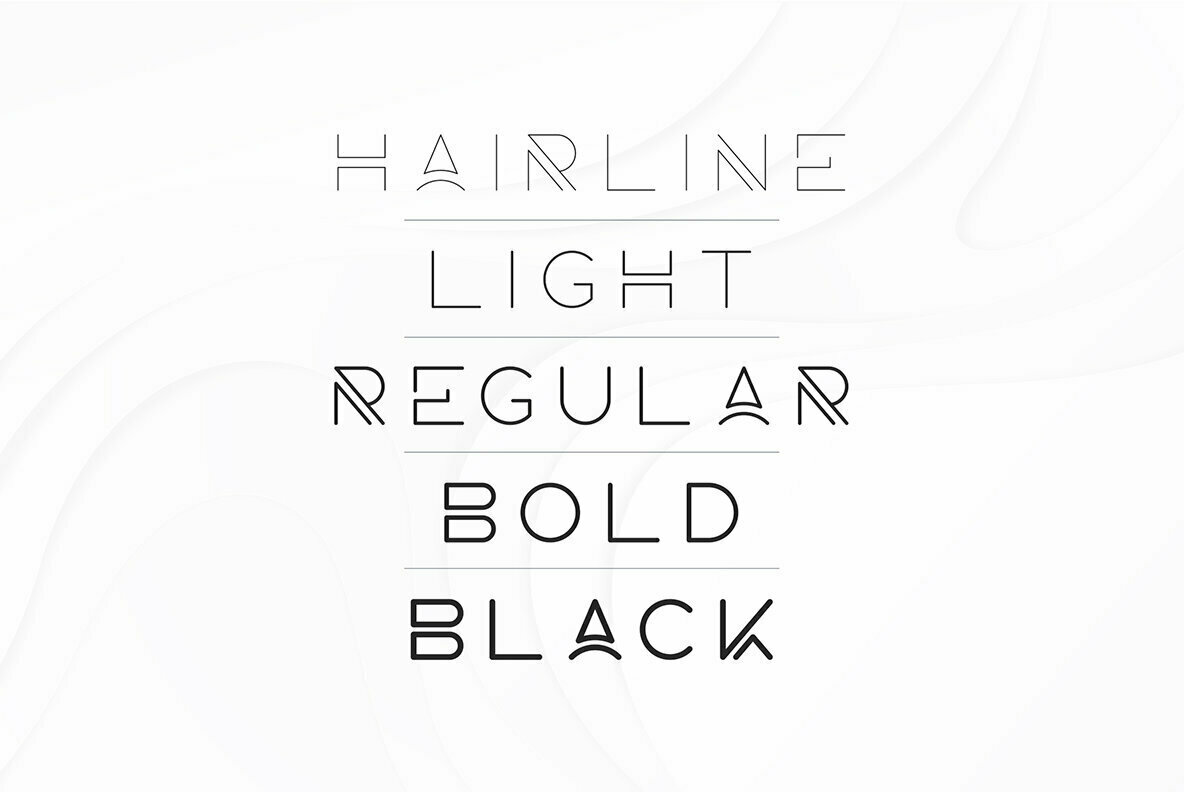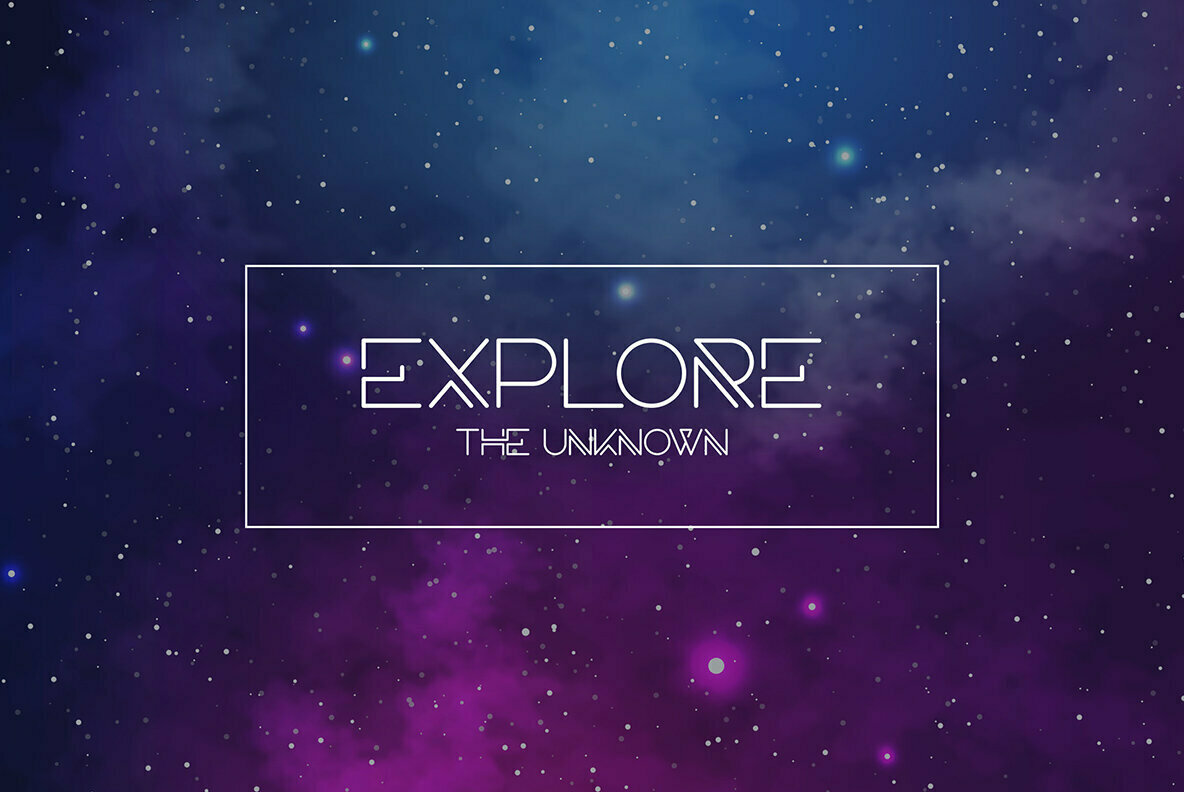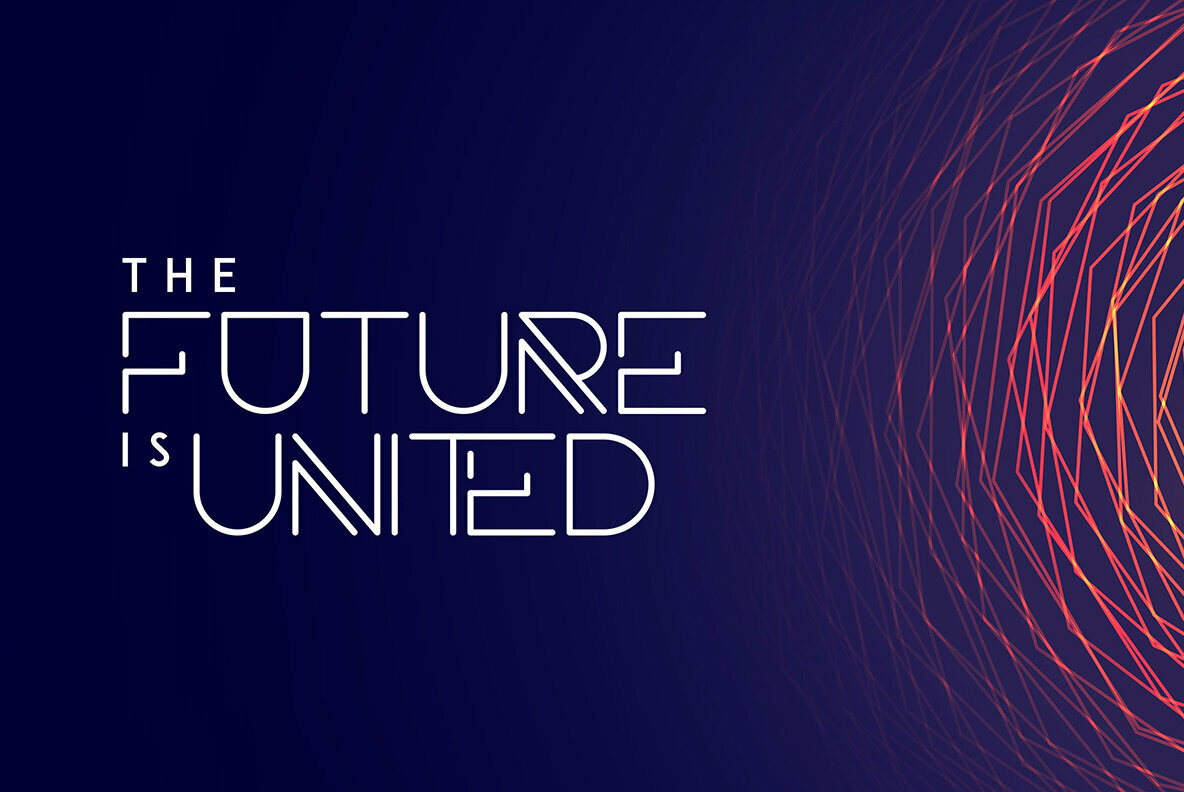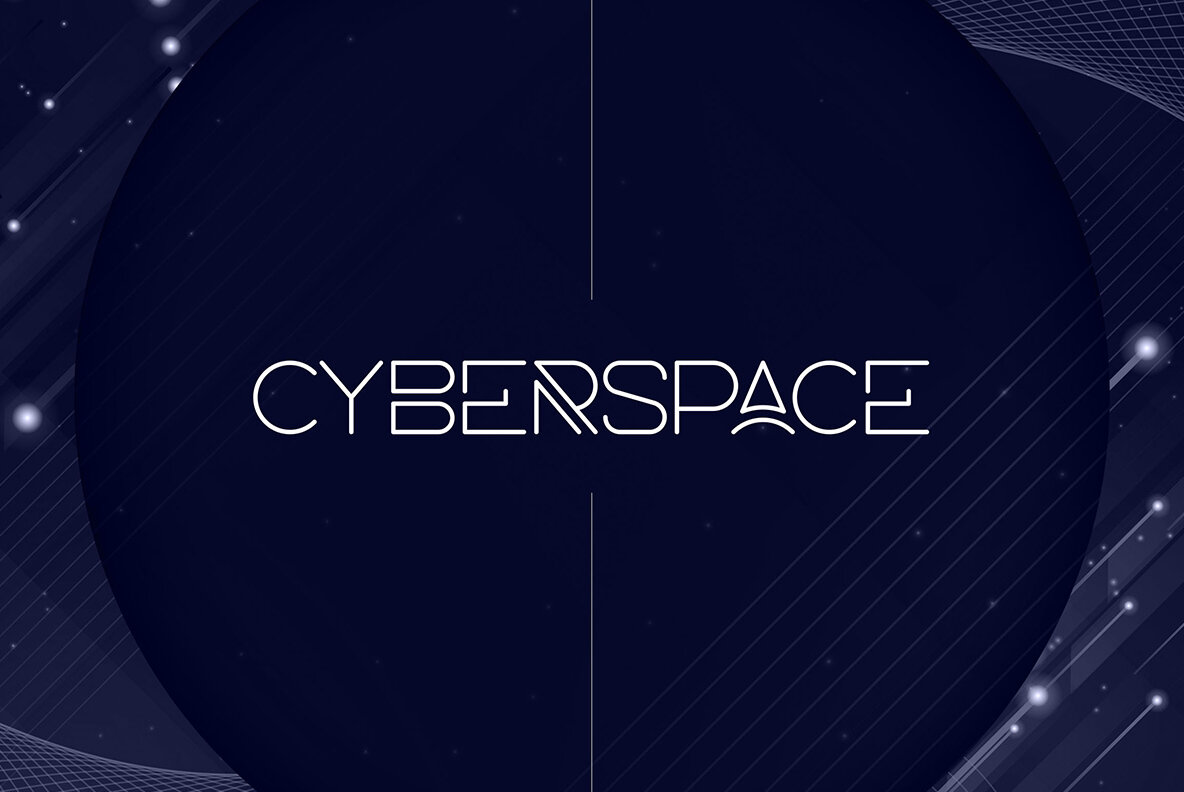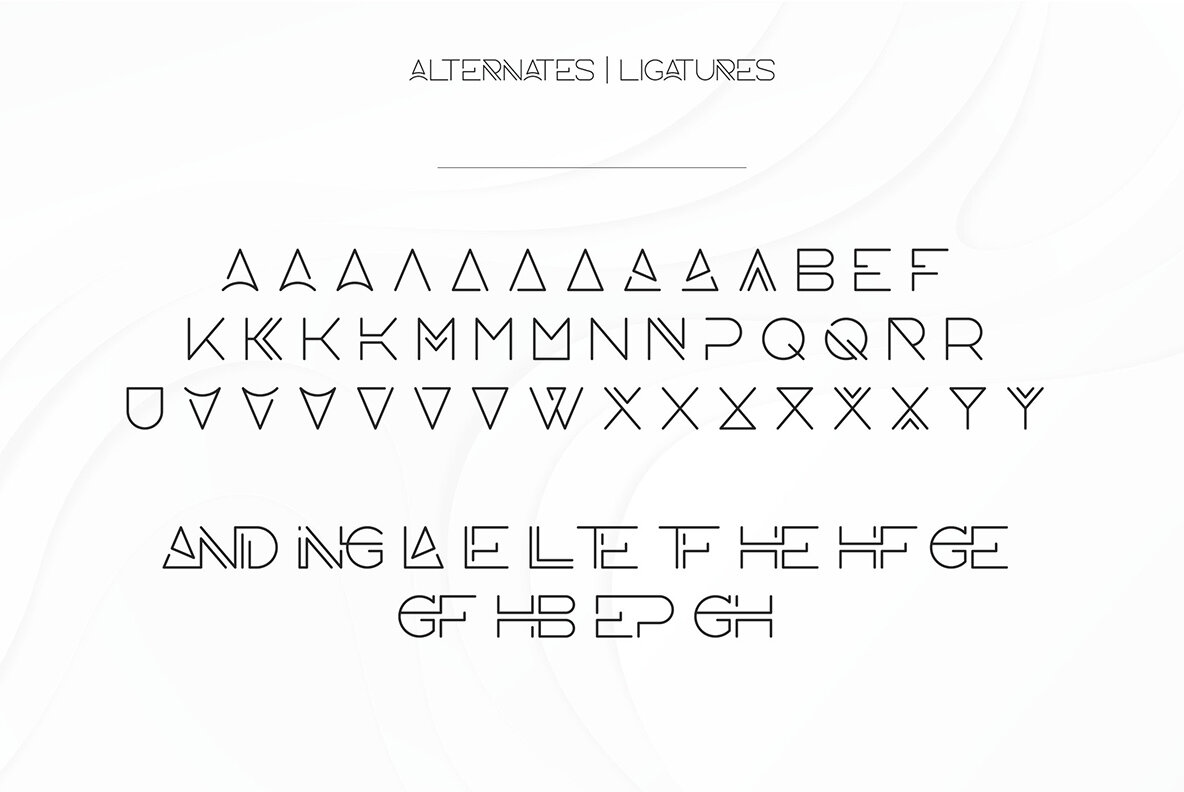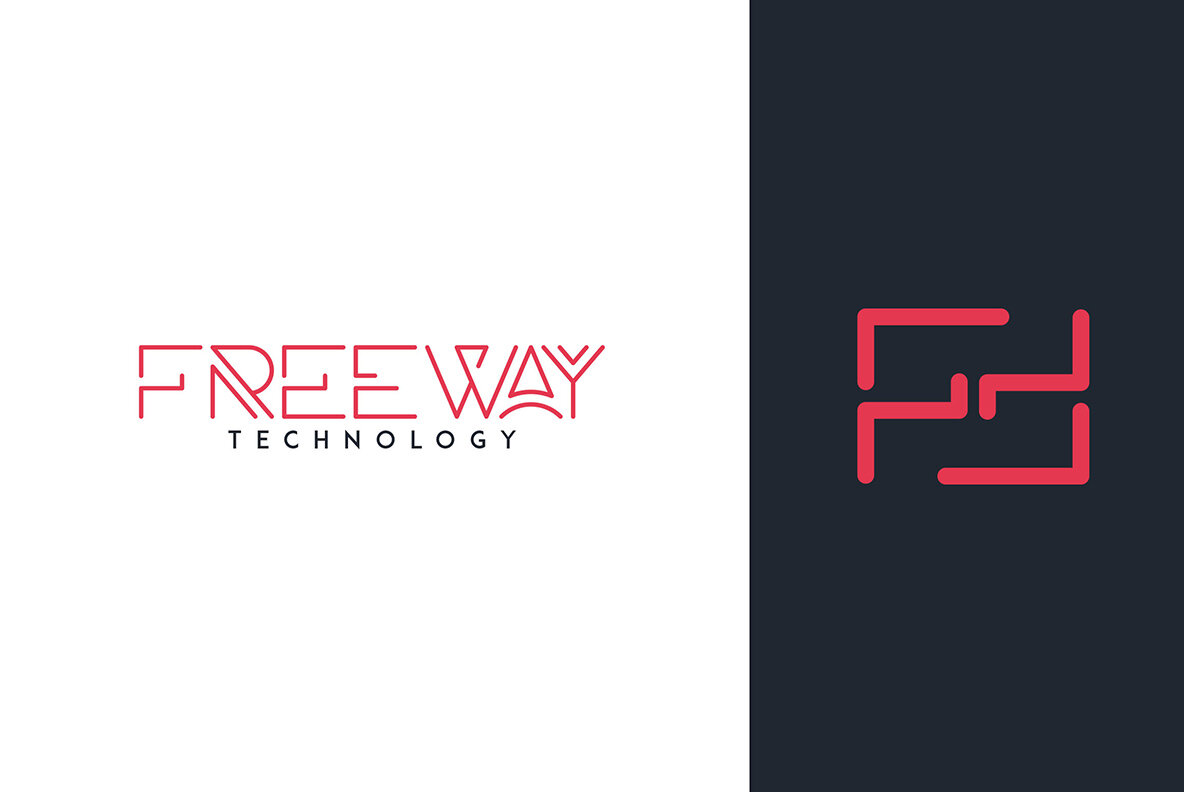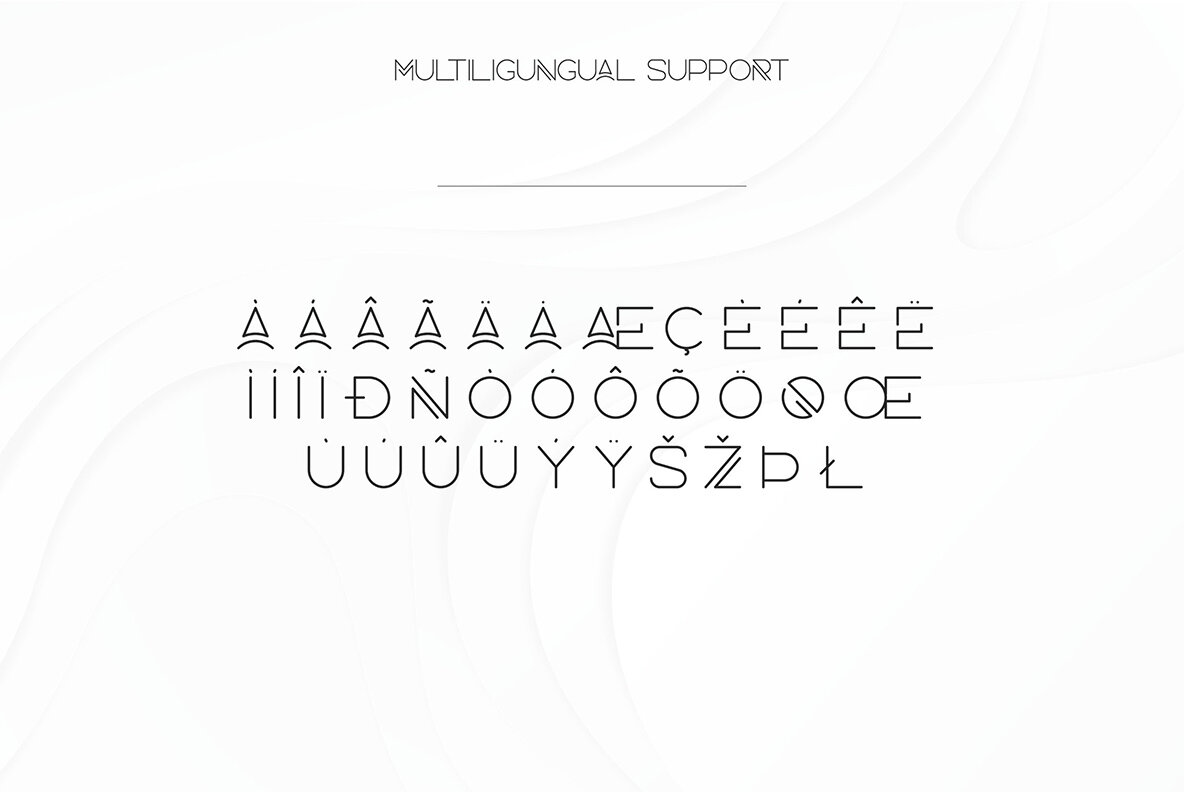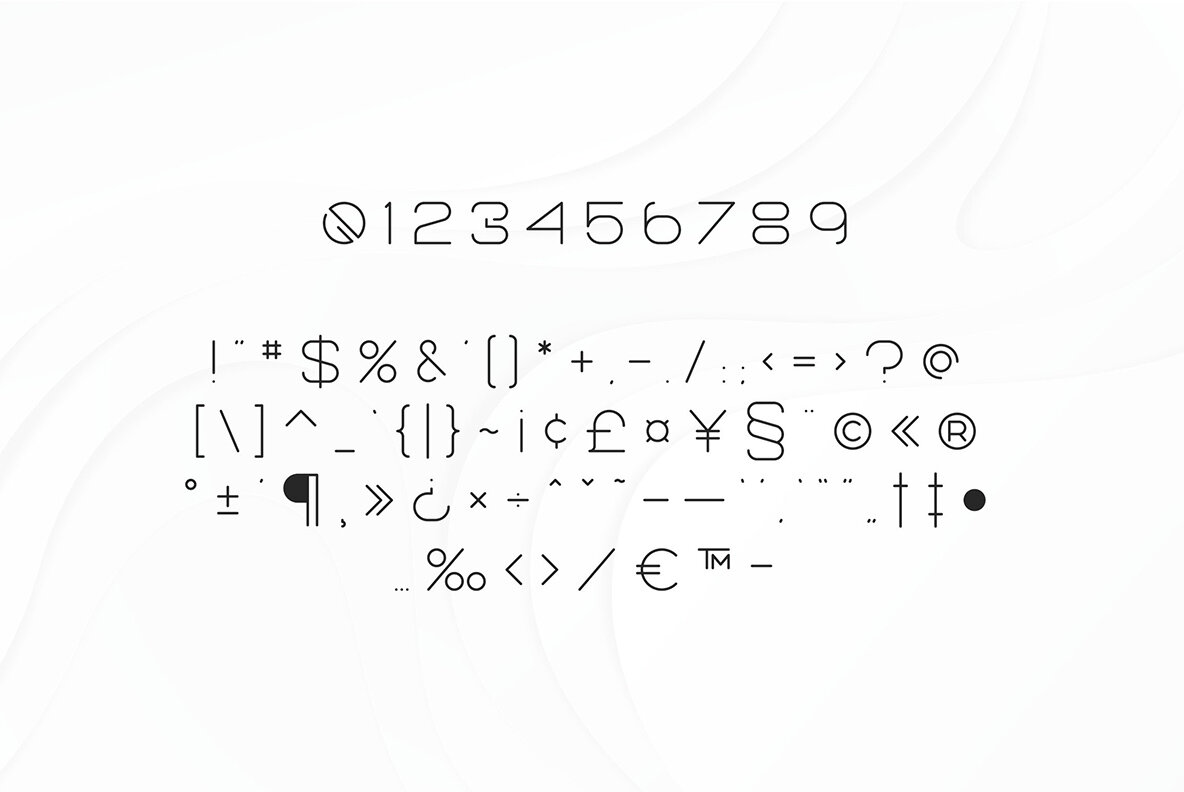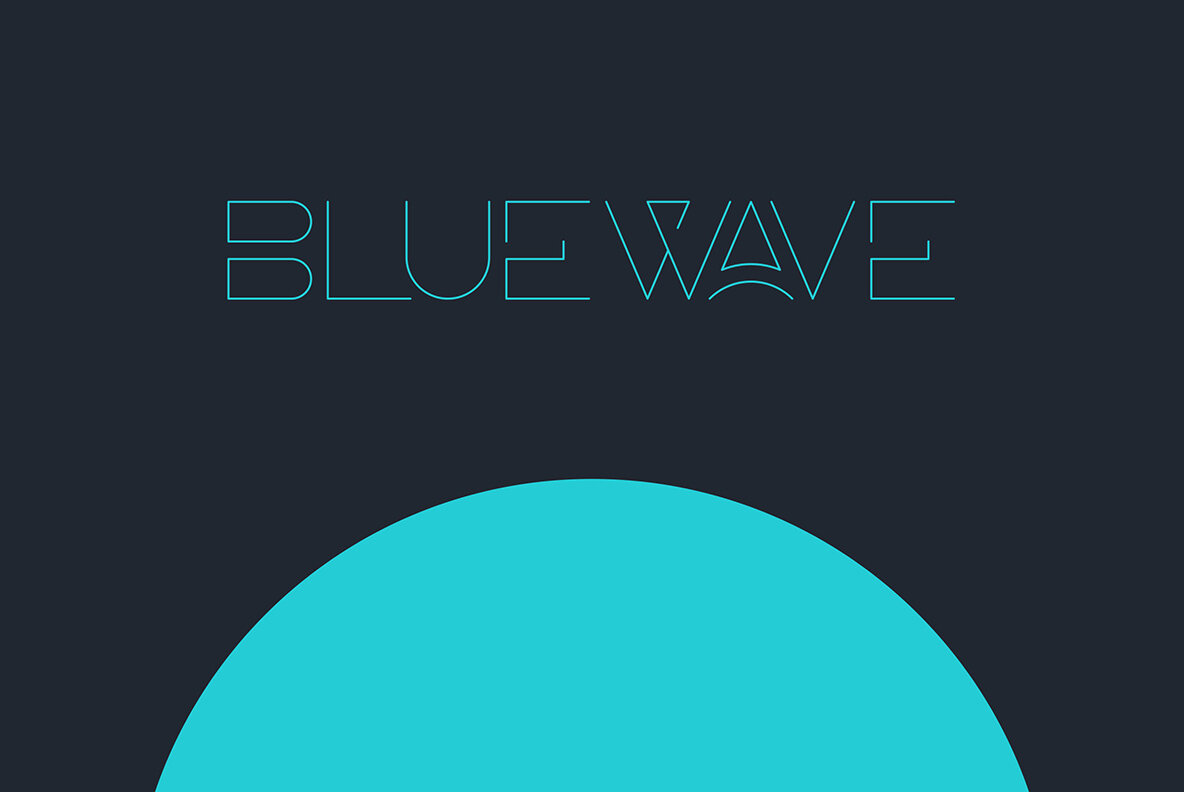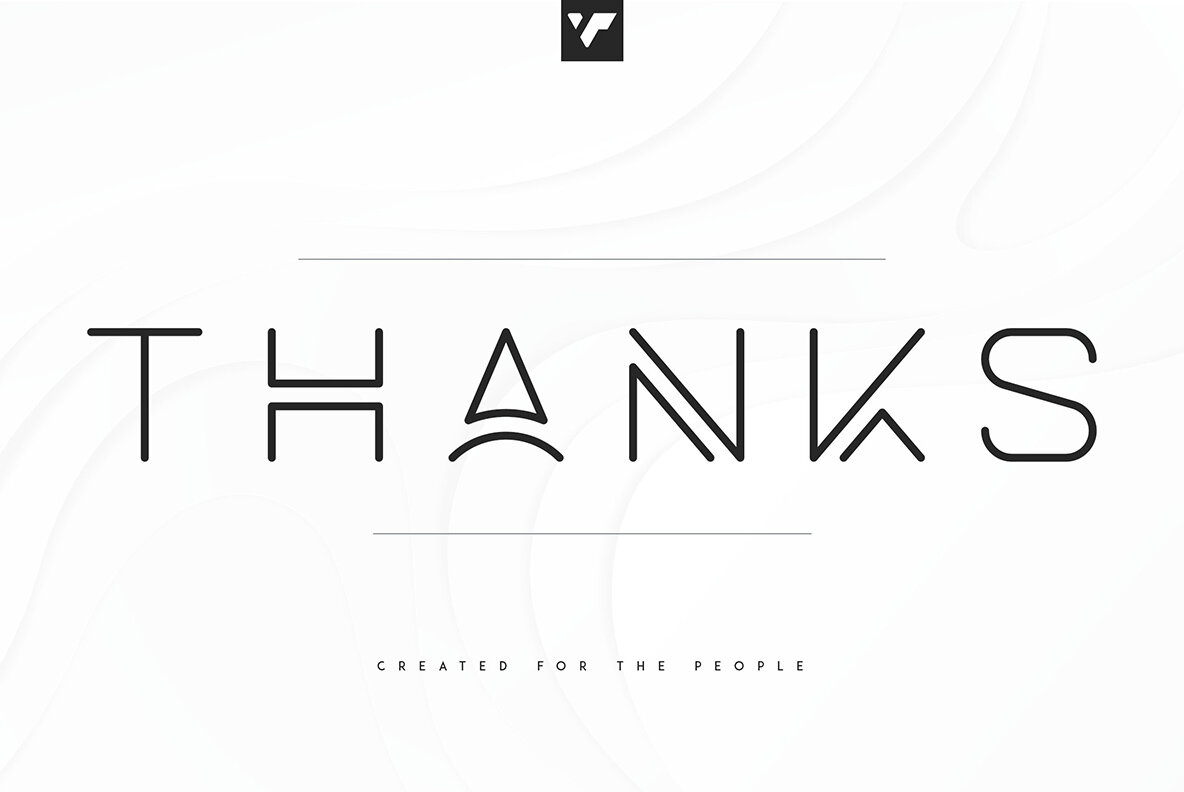
Inertia Font
The Inertia typeface is a compelling choice for designers seeking a futuristic edge. Loaded with alternate glyphs and ligatures, this font offers a remarkable range of five weights, each suited to adapt seamlessly across projects. Whether utilized in logo design or as an artful text overlay, Inertia captures attention in both expansive and compact formats. Its versatile nature ensures compatibility with various creative undertakings. Perfect for branding, product packaging, and magazine headers, Inertia elevates home-ware designs with its modern sensibility. Designers can appreciate its utility in crafting stylish text overlays that enhance aesthetic appeal in any visual context. To access alternate glyphs in Adobe programs, navigate to Window > Type & Tables > Glyphs. In Photoshop, open Window > Glyphs, then select Alternates for Selection and double-click to swap glyphs.Inertia Typeface: Versatile Style with Futuristic Flair